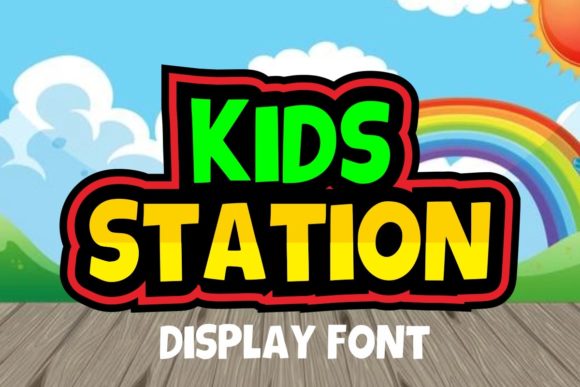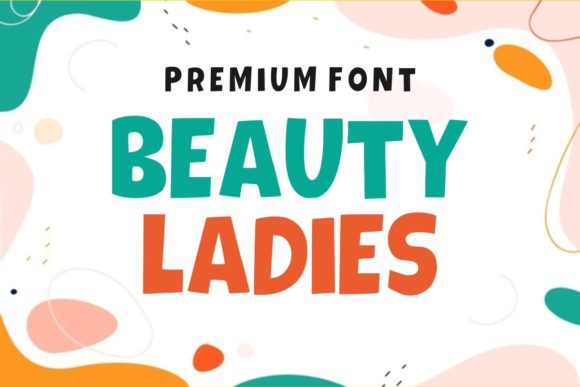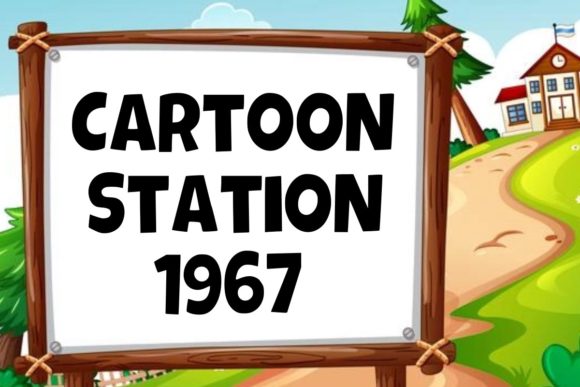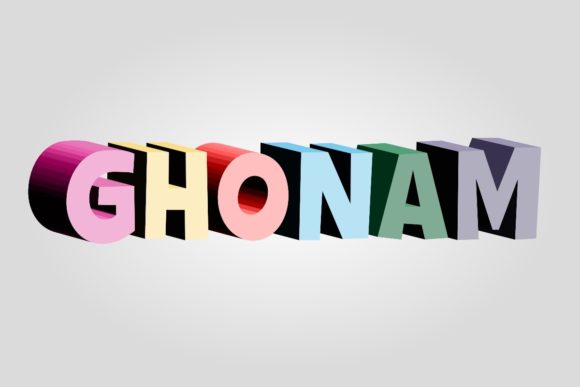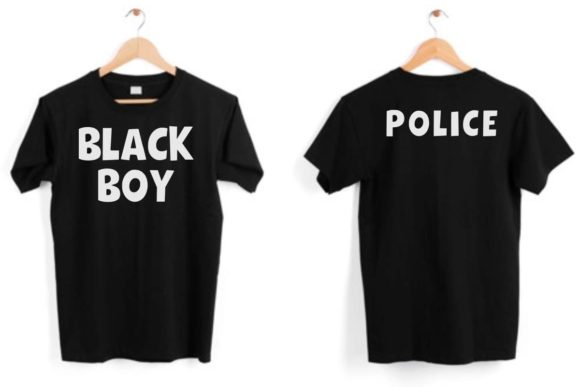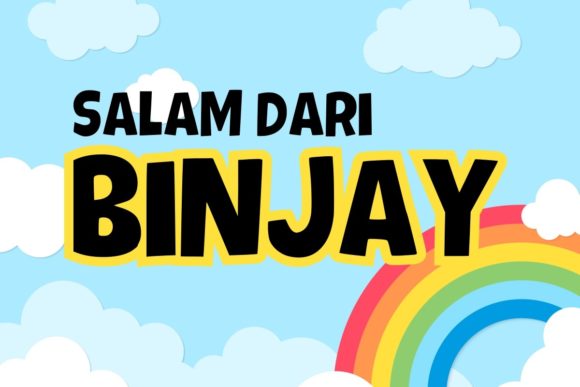
The Ultimate Guide to Ghonam Font: Your New Go-To for Friendly Designs
I’ll never forget the time I was working on a project for a children’s event, and I just couldn’t find the right font. The client wanted something fun, friendly, and easy to read. I tried font after font, but nothing seemed quite right. That was until I stumbled upon Ghonam Font. It was like a breath of fresh air! The playful, childish vibe was exactly what I needed. In this article, I’ll share my love for Ghonam Font, its features, and how to make the most of it in your designs.
An Honest Review of Ghonam Font
- ✨ Friendliness**: Ghonam Font exudes warmth and approachability, making it perfect for designs that need a personal touch.
- ✅ Readability**: This font is incredibly easy to read, even in smaller sizes, which is a huge plus for digital designs and print materials.
- 🎨 Versatility**: Whether you’re working on crafts, presentations, or product packaging, Ghonam Font adapts seamlessly.
- 👍 Ease of use: This font is a great choice for beginners and pros alike, with an intuitive design that’s easy to work with.
While Ghonam Font is amazing, there are a few things to keep in mind:
- ⚠️ Limited formal use: Due to its playful nature, Ghonam Font might not be the best choice for very formal or professional projects.
- 🤔 Overuse of stylistic alternates: While the font offers some great stylistic alternates, overusing them can make the text look cluttered.
The Backstory of Ghonam Font
Ghonam Font was designed with one goal in mind: to create a friendly, approachable font that would make designs feel more personal. The designer, inspired by childhood memories of handwriting and playful typography, crafted Ghonam to be a versatile and easy-to-read font. Today, it’s a favorite among designers, crafters, and hobbyists for its impeccable friendliness and flexibility.
Q: What makes Ghonam Font so special?
A: Ghonam Font’s unique blend of friendliness, readability, and versatility makes it a standout choice for a wide range of design projects.
Q: Is Ghonam Font suitable for body text?
A: While Ghonam Font is easy to read, it’s primarily designed for display use. For longer body text, consider a font with more traditional typography.
Q: Can I use Ghonam Font for kids’ projects?
A: Absolutely! Ghonam Font’s playful and childish vibe makes it perfect for kids’ projects, such as crafts, party invitations, or educational materials.